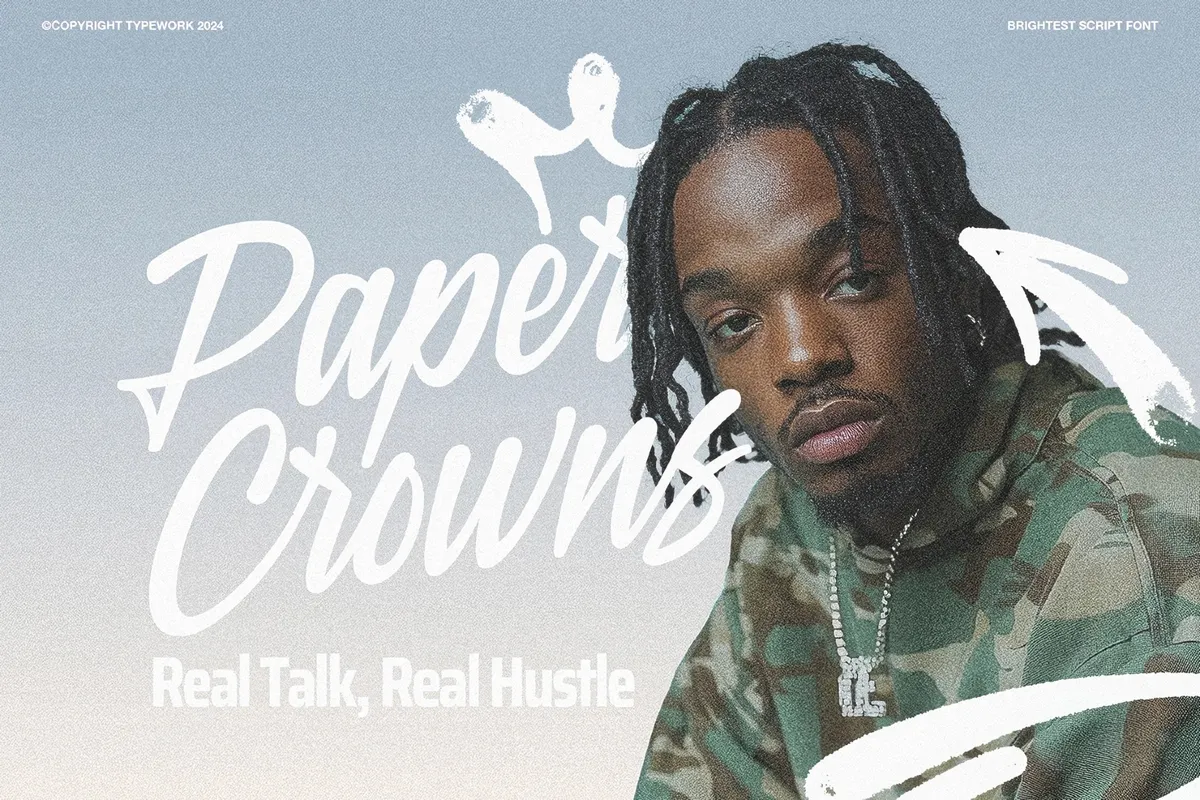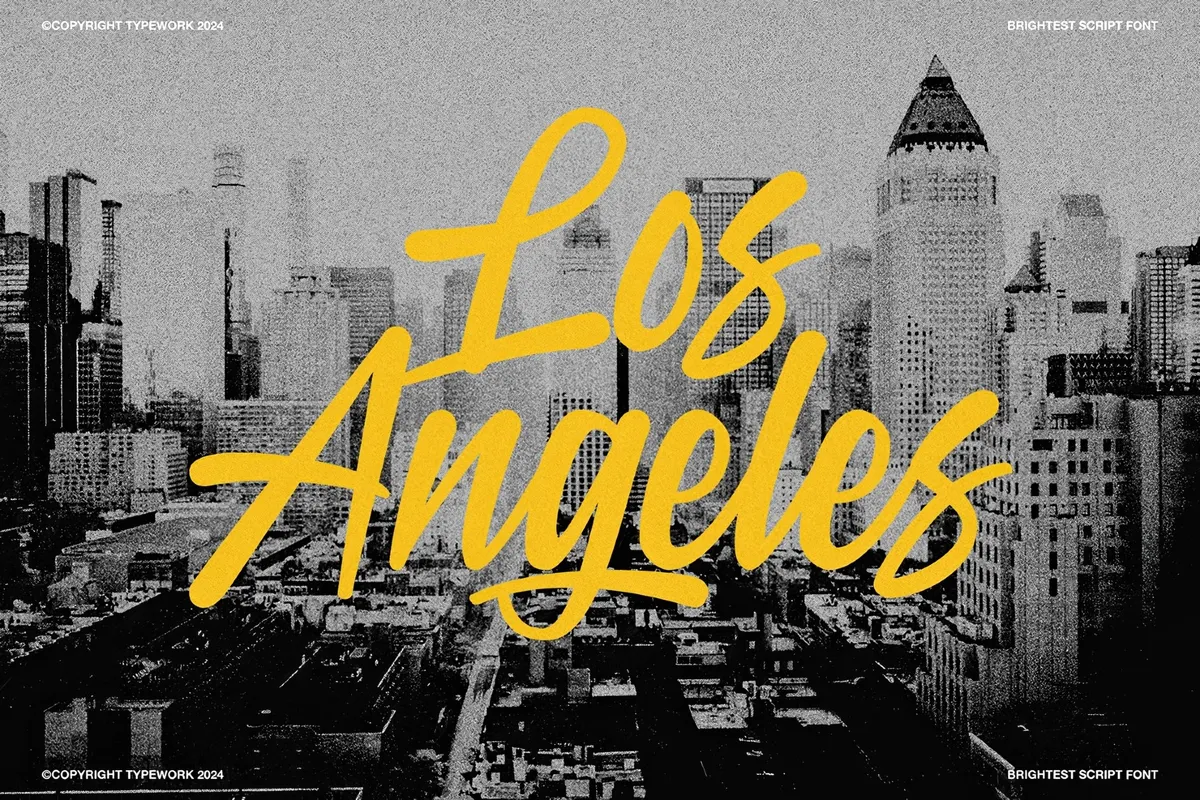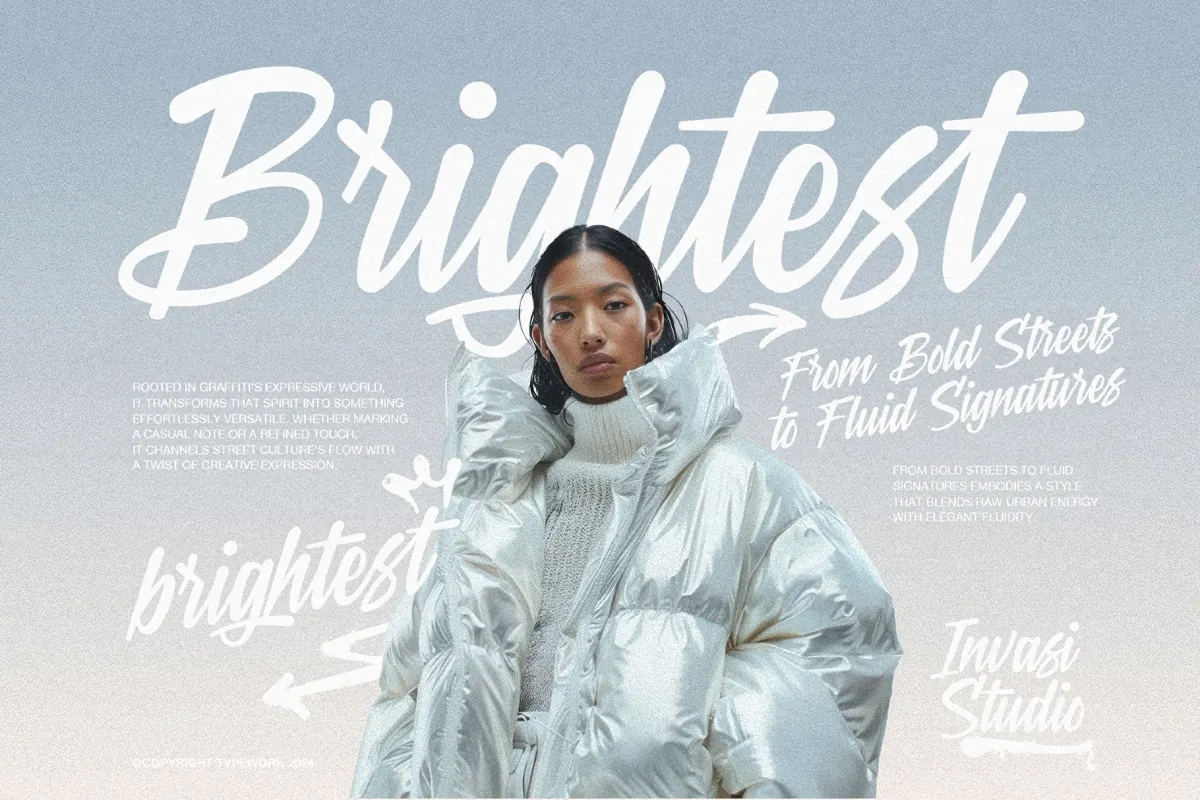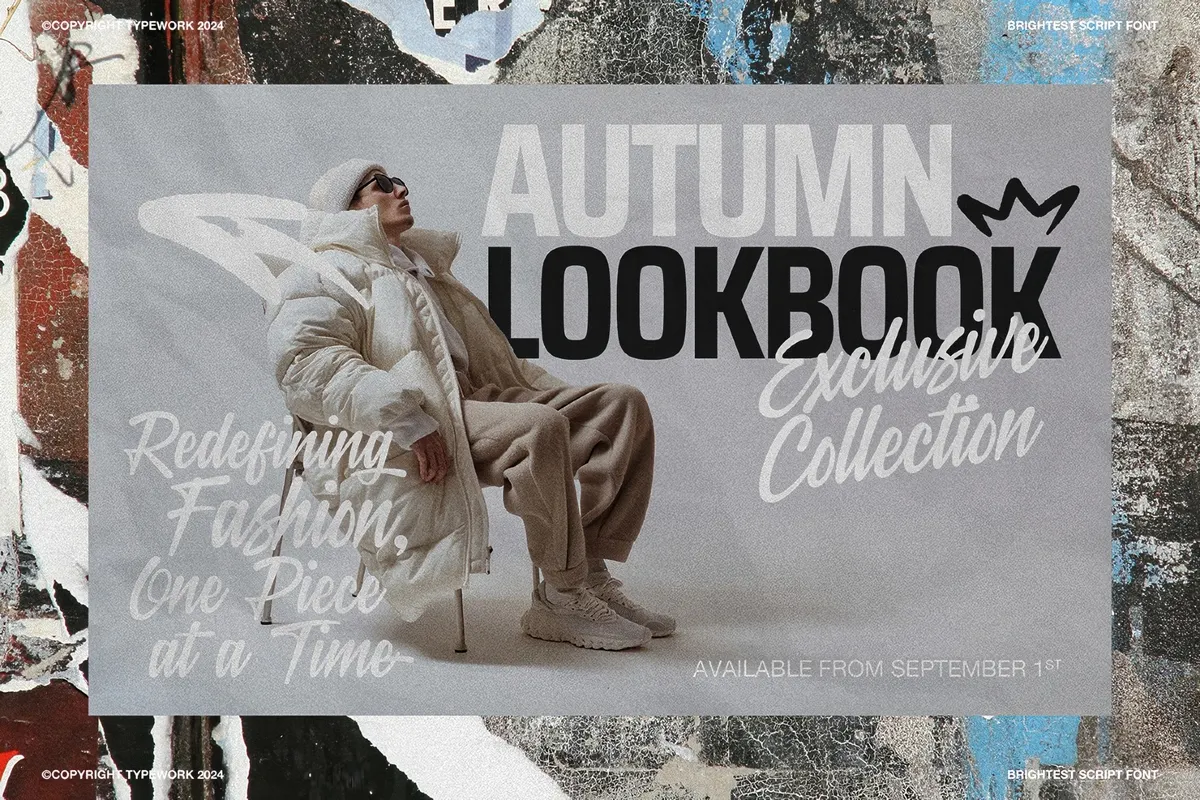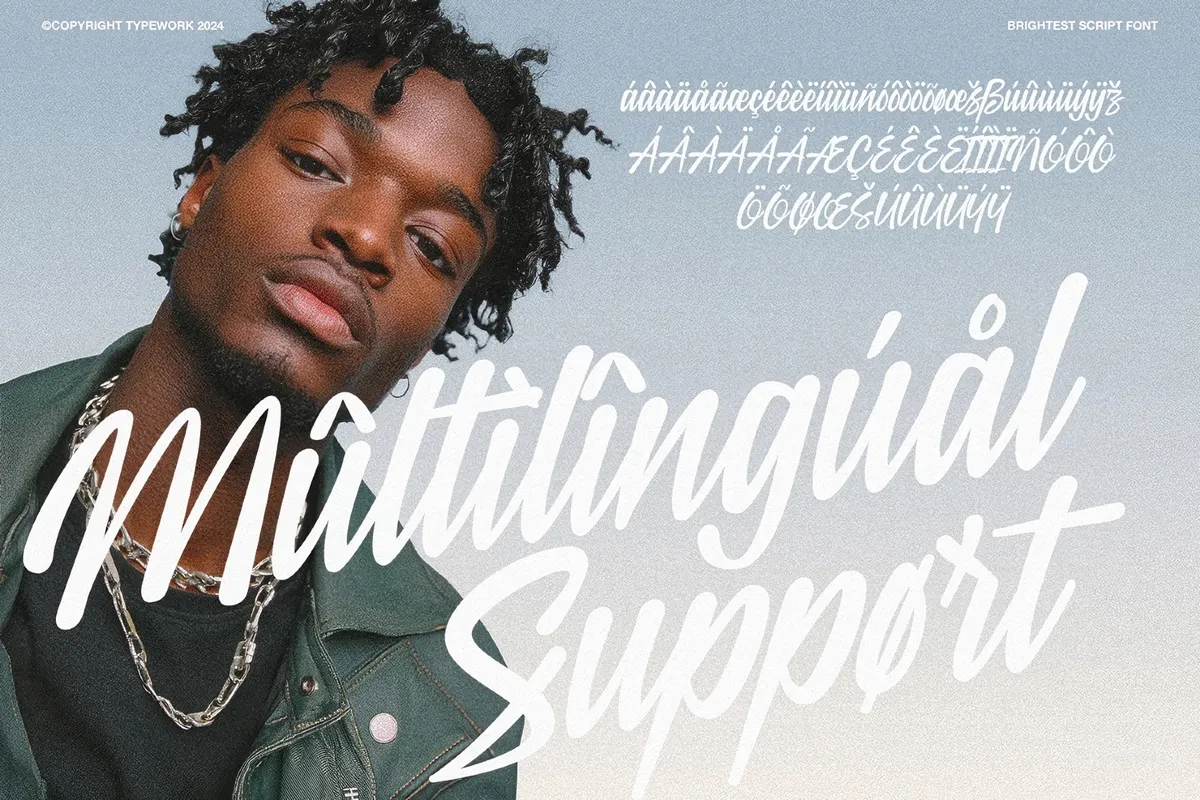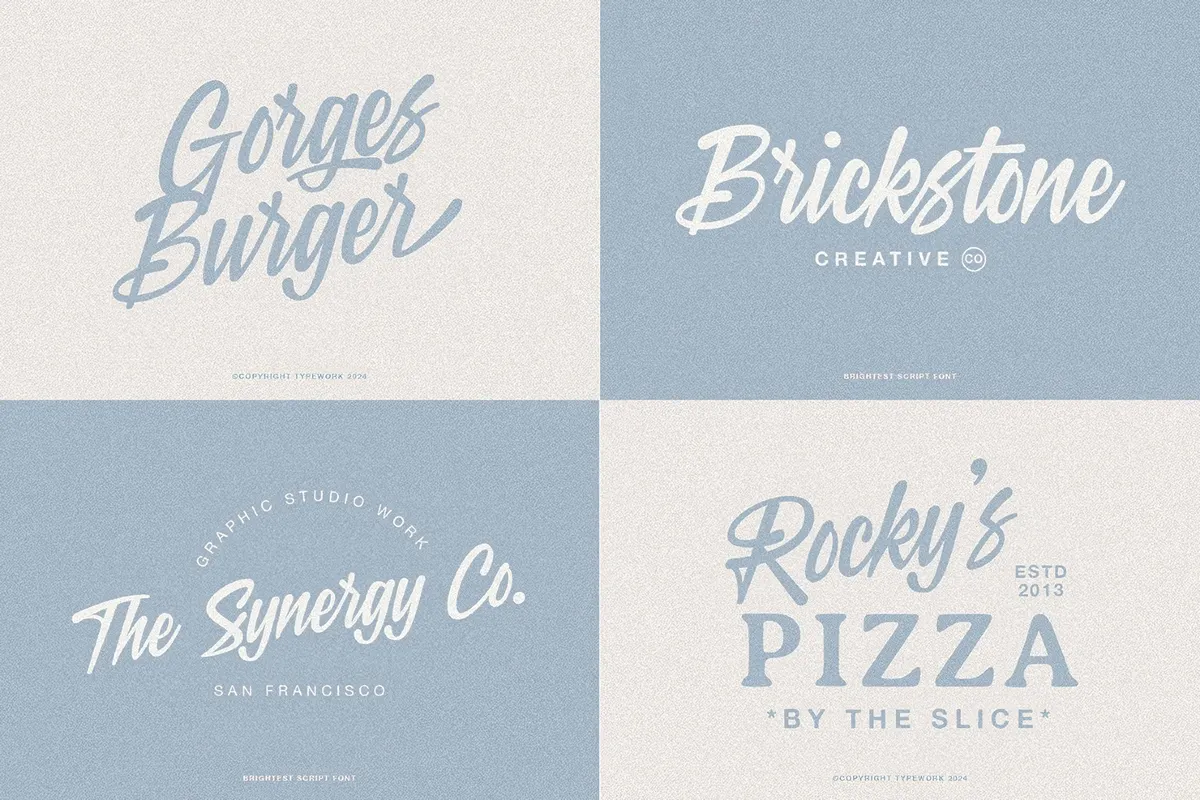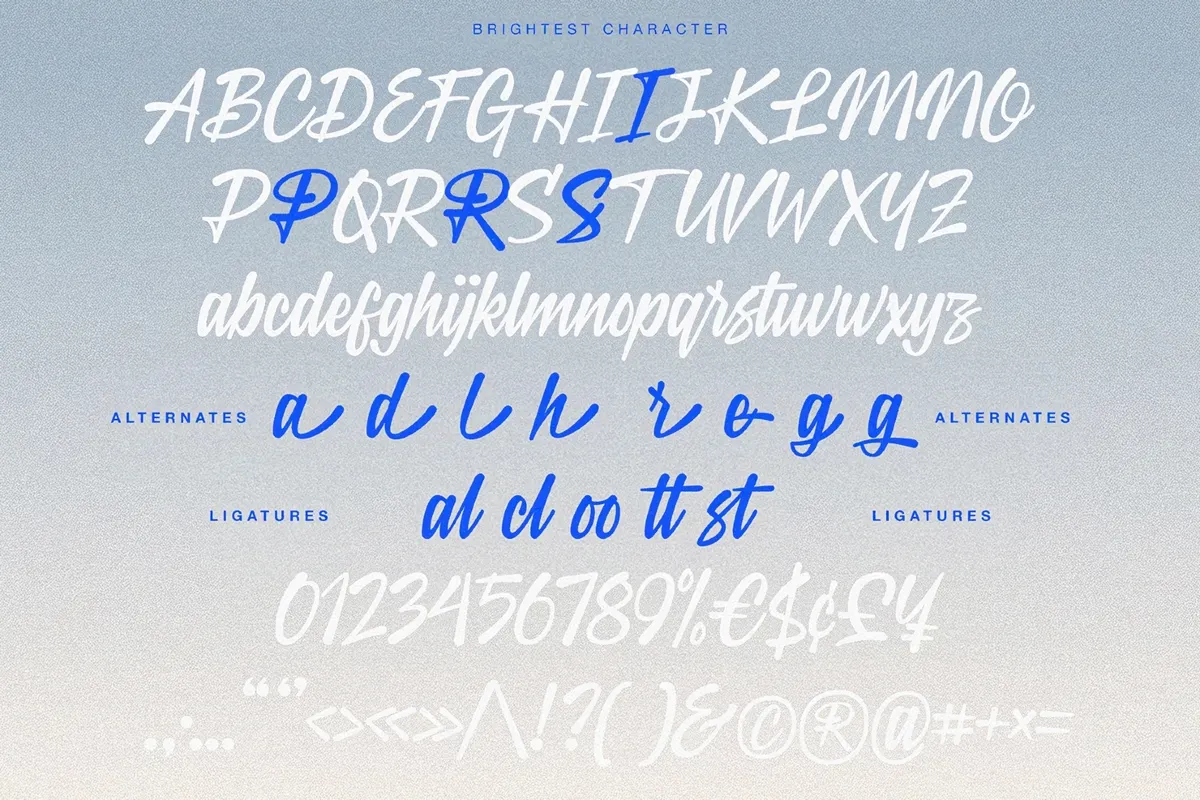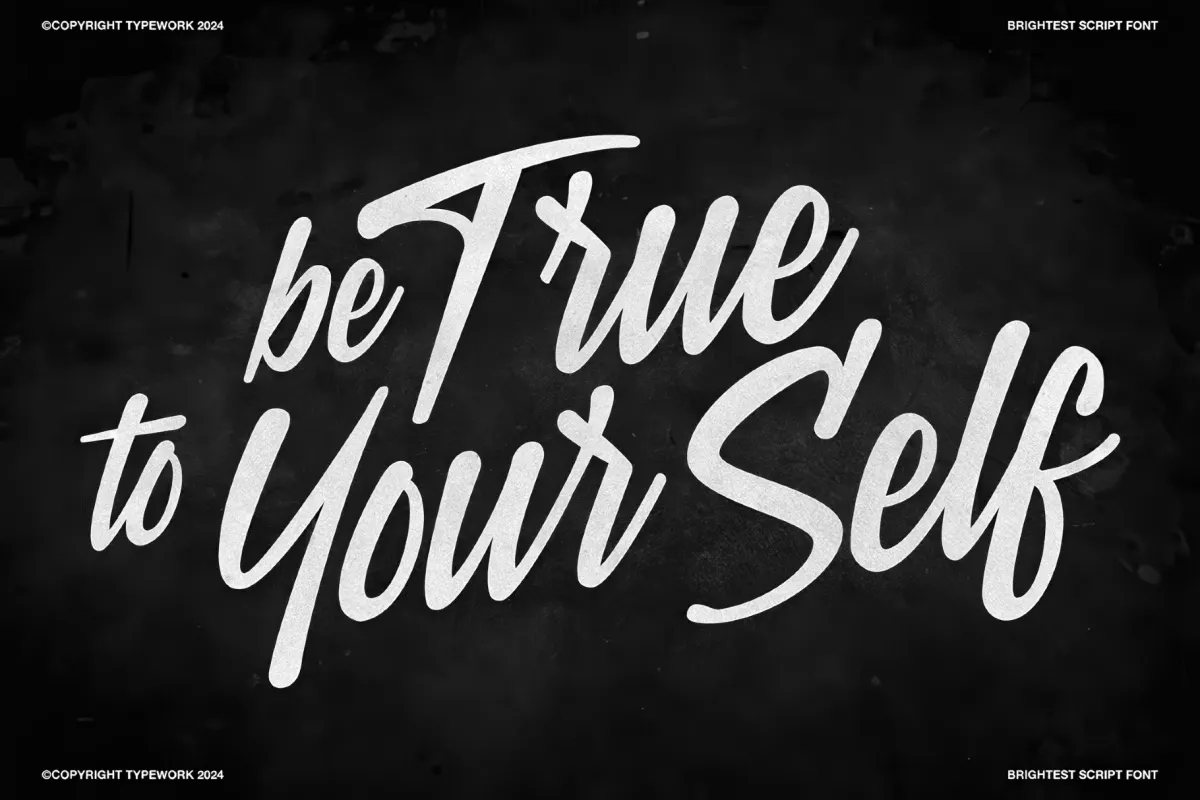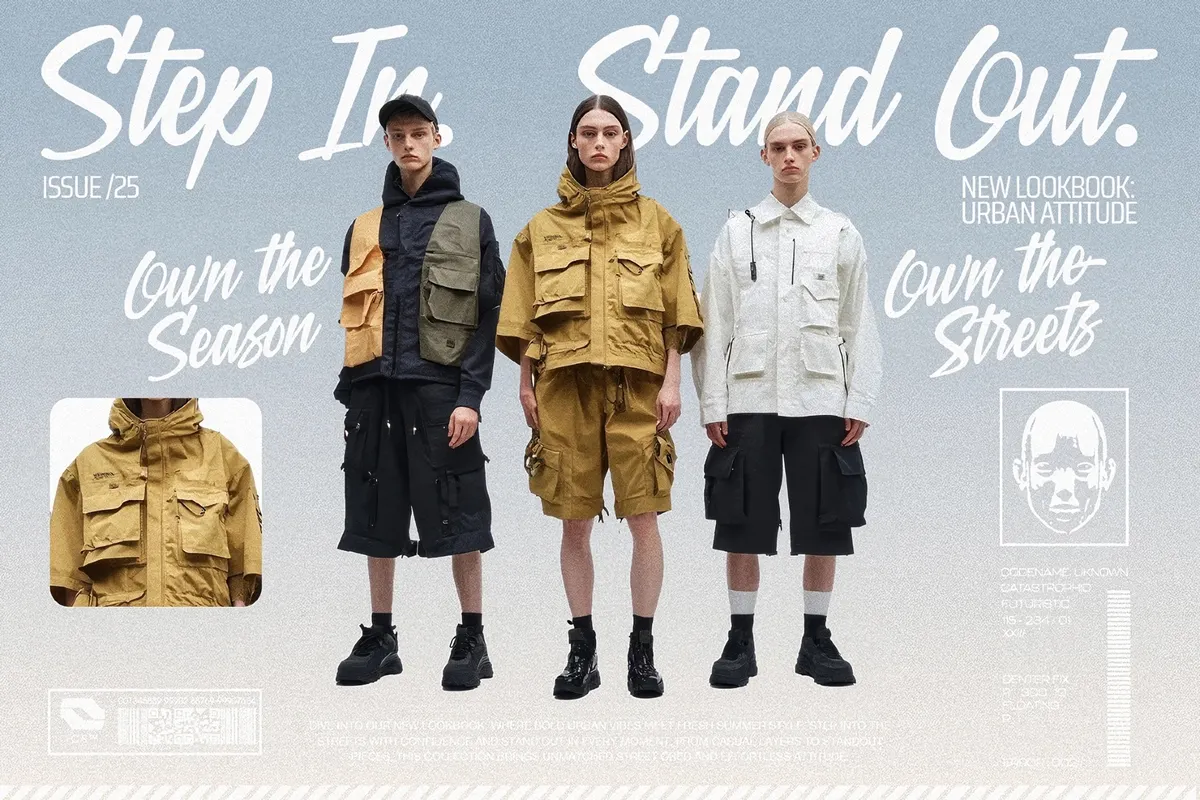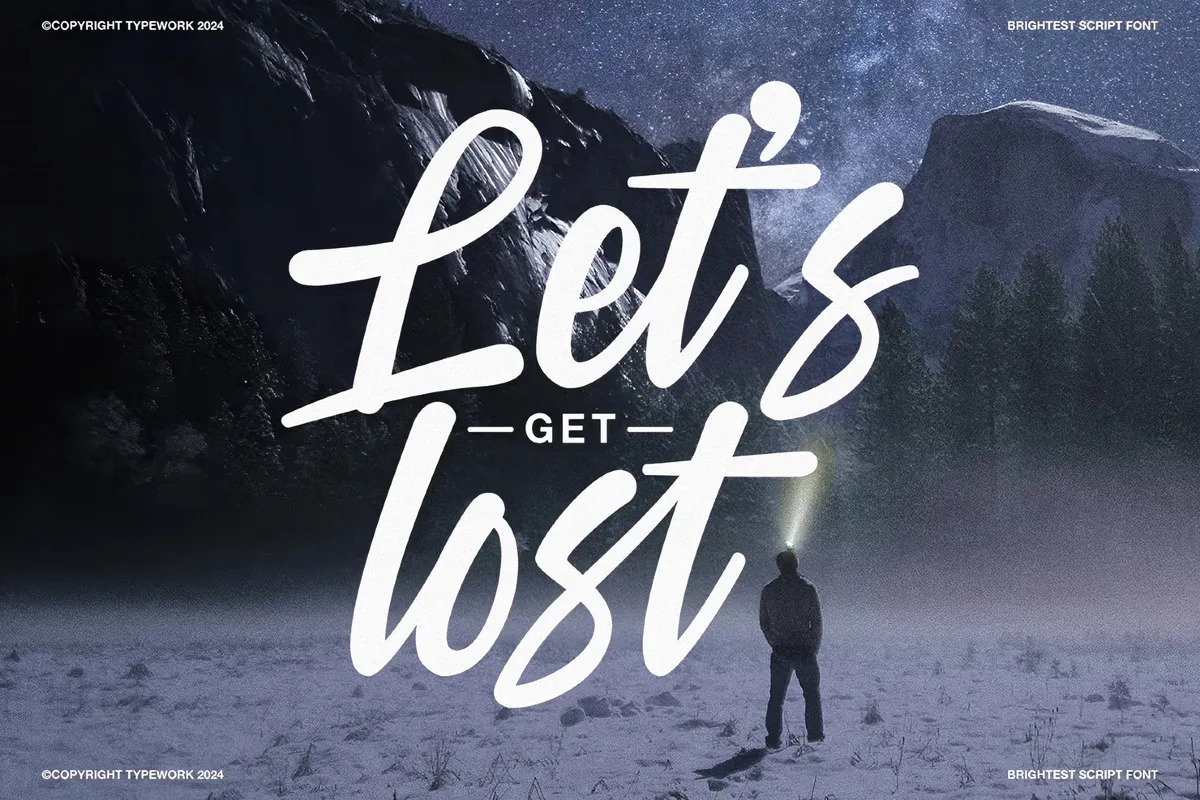
Brightest – Graffiti Signature Font
Brightest is a signature with a spray can in its hand. This fast, connected brush script leans hard and finishes every word with a long, whipping tail. The strokes bear graffiti DNA: pressure-thick downstrokes, thin flicks, the confident overshoots of a tag thrown in one motion. It swings between two moods on the same keyboard — a clean handwritten signature for the soft lines, a rougher street mark for the loud ones.
Let the long tails and connectors do the layout: run a word across a photo, underline a headline with a flourish, sign off a poster like it's a wall. Alternate letters and ligatures keep repeats from matching and let you tune the flow. Put it on fashion and streetwear lookbooks, music covers and mixtape art, brand logotypes and signatures, event posters, and apparel graphics.
- uppercase and lowercase characters;
- alternate letters and ligatures;
- multilingual Latin — 60+ languages, Western, Central, and Eastern European;
- numerals, punctuation, and currency.